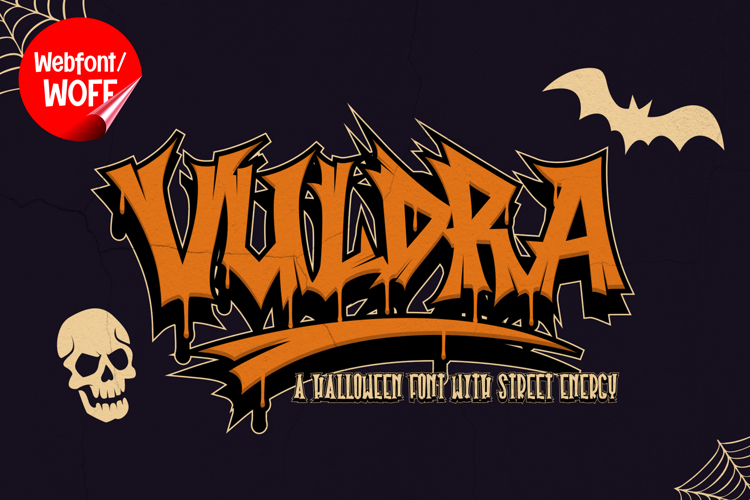
Vuldra | Halloween Dripping Webfont for Spooky Creative Idea
Vuldra is a Halloween dripping webfont designed to bring spooky atmosphere and horror-inspired creativity into modern website design. Inspired by classic horror typography, dripping slime effects, and dark Halloween aesthetics, this font features bold letterforms and fluid dripping details that create a chilling and eye-catching visual identity. It is an excellent choice for projects that aim to deliver eerie visuals with strong seasonal character and dramatic display style.
Vuldra includes a complete set of uppercase characters designed with Halloween dripping aesthetics. The letterforms feature sharp edges, bold structures, and flowing drip effects that create a creepy and dramatic appearance inspired by horror movies, haunted themes, and dark fantasy visuals. These characteristics make it ideal for headlines, banners, hero sections, event promotions, and featured content where spooky visual impact is needed.
In addition to letters, the font includes numbers and punctuation, allowing flexible usage across various parts of a website. It works well for Halloween event websites, horror-themed branding, gaming projects, spooky party invitations, streaming graphics, and seasonal promotional campaigns. Each character maintains a consistent dripping horror style, ensuring a cohesive and unified visual identity throughout the design.
With multilingual support, Vuldra includes a wide range of accented characters, making it suitable for international websites and global audiences. This ensures content remains clear and visually consistent across different languages while preserving the eerie and decorative horror aesthetic.
The Halloween dripping style of Vuldra makes it especially suitable for haunted attraction websites, horror entertainment projects, dark-themed branding, and seasonal creative campaigns. Its dripping structure and dramatic appearance create a chilling atmosphere that helps websites stand out in visually competitive environments. The horror-inspired forms add movement, tension, and cinematic character while maintaining a modern display style.
Despite its decorative and highly expressive appearance, Vuldra is designed with readability in mind. The spacing and proportions are carefully balanced to ensure clarity, particularly in display sizes. This allows designers to use the font effectively for impactful headings and short content without sacrificing usability.
Vuldra is a webfont that combines horror-inspired dripping aesthetics with modern digital performance. Its bold forms, eerie drip details, and spooky character create a distinctive typographic presence that enhances website design. For projects that require a dark, dramatic, and visually engaging Halloween font, Vuldra offers a versatile and powerful solution.